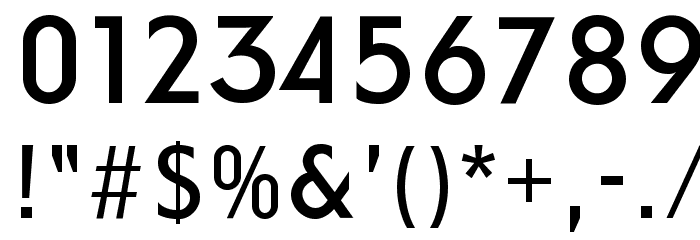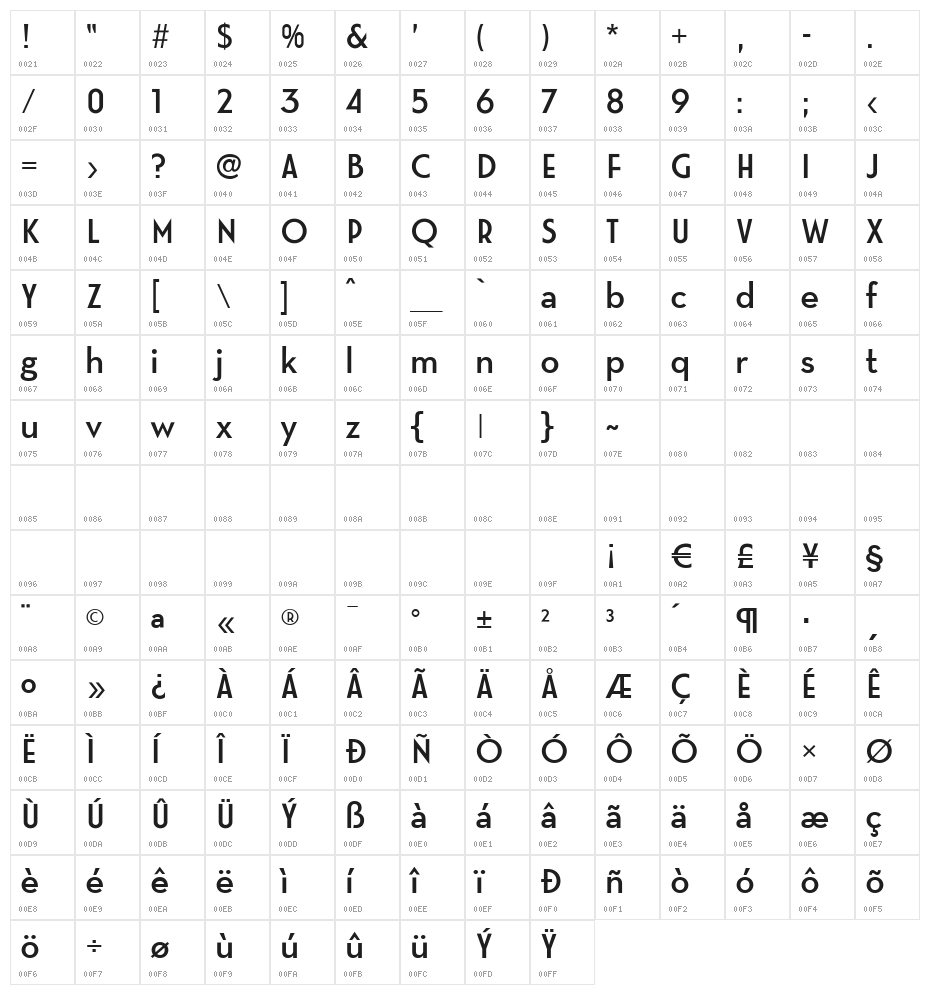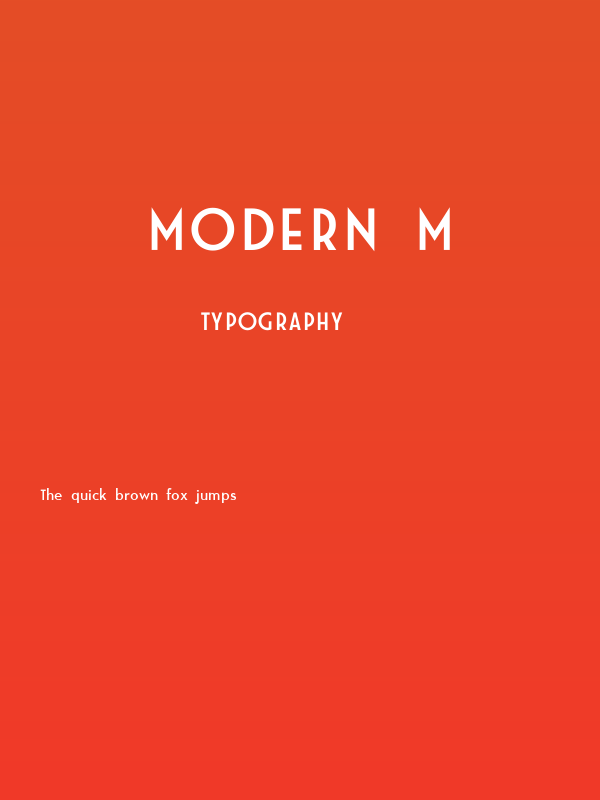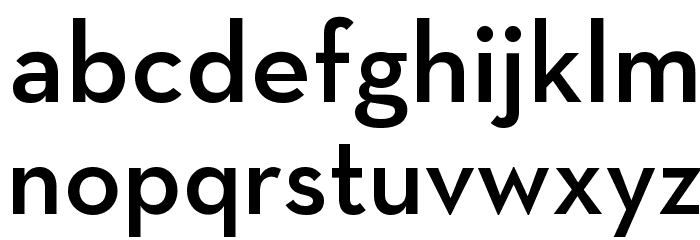
Modern M Font
Modern M Description
This typeface exhibits a clean, geometric design with a modern aesthetic. The characters are well-proportioned, featuring uniform stroke widths that contribute to a balanced and harmonious appearance. The uppercase letters are bold and assertive, while the lowercase letters maintain a friendly and approachable feel. The numerals are clear and legible, making them suitable for various applications. The special characters are distinct and consistent with the overall style, ensuring versatility in design projects. This font is ideal for conveying a contemporary and professional look.
Upper Type Foundry - Marco de Luca - www.dlassociatesdesign.com
| Proposed Projects | Ideal for branding, advertising, web design, and editorial projects that require a modern and professional appearance. |